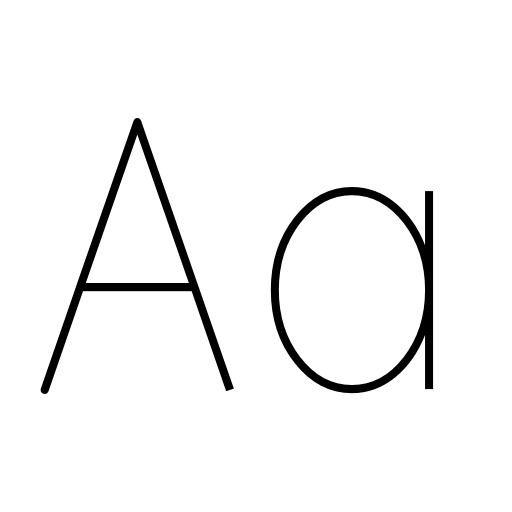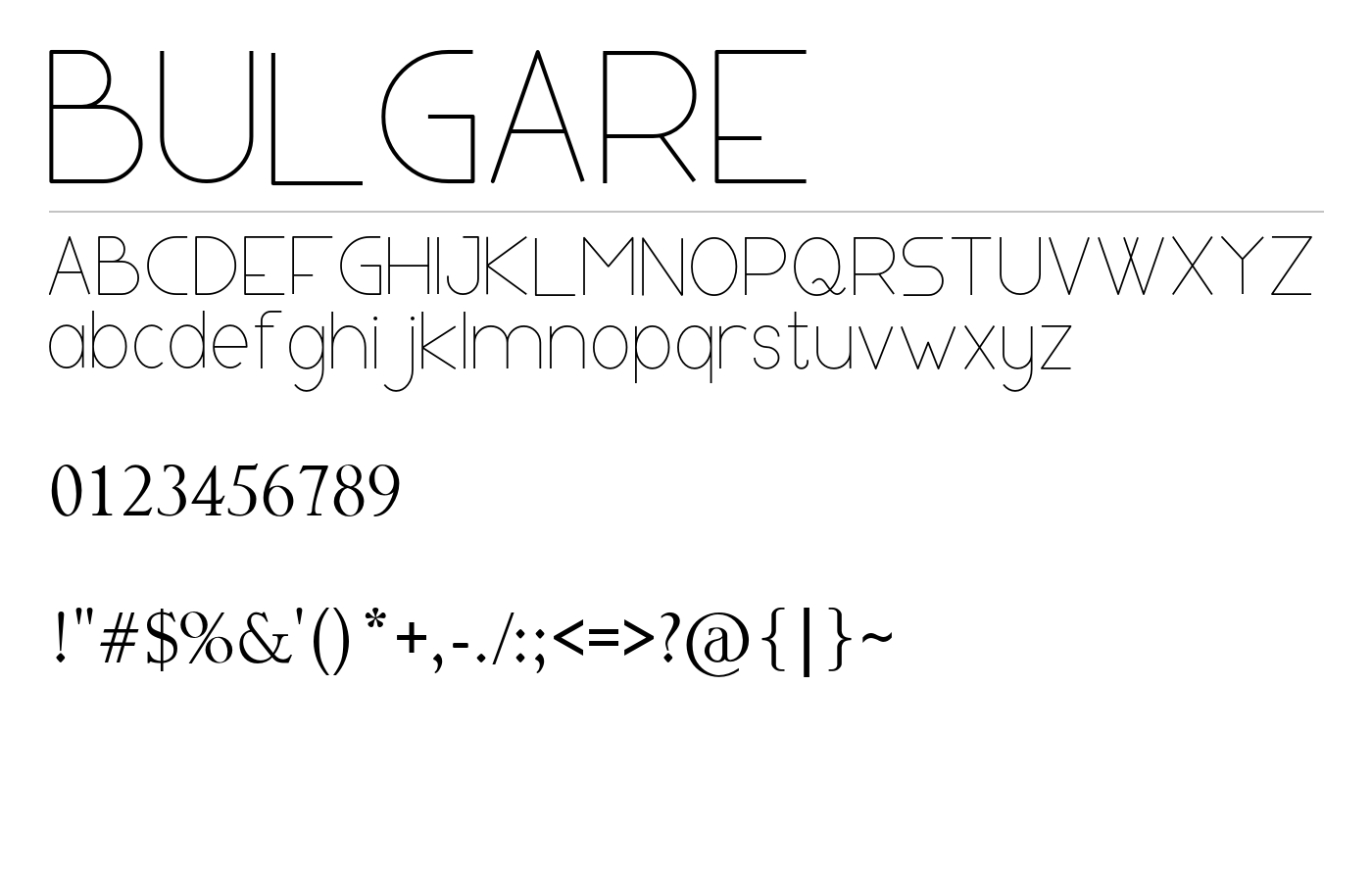
BULGARE is a refined, modern sans serif font characterized by its very thin strokes and light weight, giving it an elegant, airy feel. Its clean, geometric letterforms with subtle curves bring a contemporary and sophisticated personality, making it ideal for stylish branding, editorial headlines, and high-end design projects that seek a minimalist yet distinctive look. The font’s delicate balance of simplicity and uniqueness works beautifully for fashion, luxury packaging, or any context where a sleek and graceful aesthetic is desired.
BULGARE Font